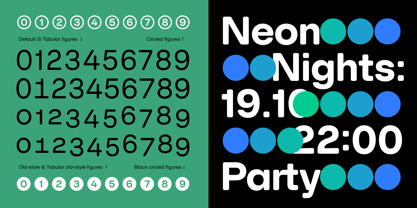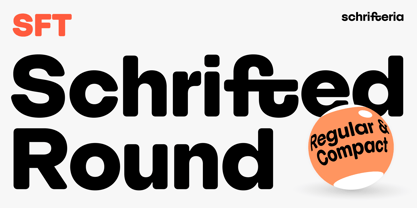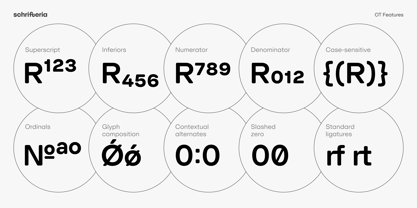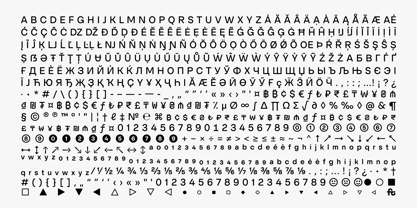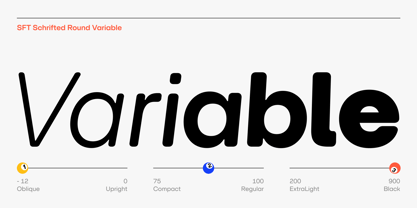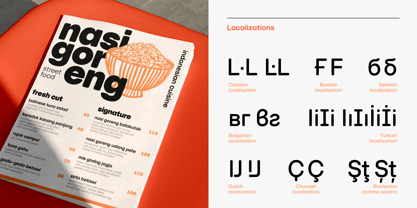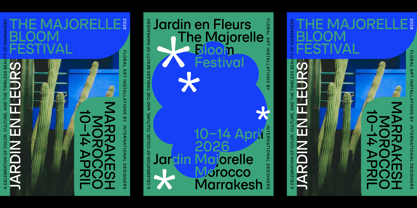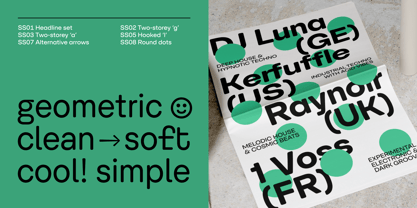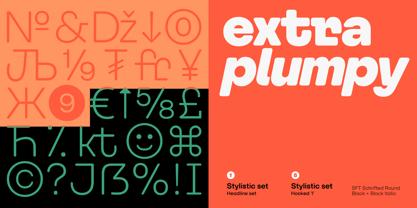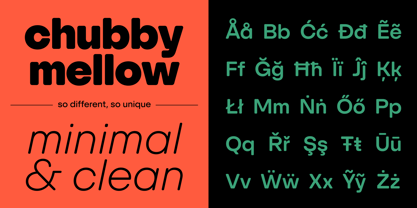
SFT Schrifted Round
by Schrifteria Foundry
The SFT Schrifted Round Font Family was designed by Yulia Gonina, Kirill Maslov and published by Schrifteria Foundry. SFT Schrifted Round contains 33 styles and family package options.
SFT Schrifted Round is a geometric sans with softened edges, clear and inviting at a glance. Concept SFT Schrifted Round takes the rational framework of SFT Schrifted Sans and softens it with rounded corners and smoother contours. The goal is a modern, minimalist voice that keeps precision intact while adding a touch of warmth. It’s built for real work — interfaces, packaging, wayfinding, editorial — where typography needs to solve problems cleanly without feeling cold. The family offers enough range to set calm, efficient text and, when needed, bring more character to expressive headings. Graphics Visually, SFT Schrifted Round translates crisp geometry into tactile shapes. Corners are softened, and proportions remain generous for comfortable reading on screens and in print. The rounding is purposeful rather than decorative — it smooths rhythm, balances texture, and adds a subtle human presence to grids and systems that value precision. Family The core appearance is a rounded geometric sans with thoughtful spacing and optical balance. In lighter weights it reads as clean and unobtrusive; in bold styles it becomes confident and expressive. Use default styles for dependable text, then unlock stylistic sets to introduce a more distinctive headline voice. Figure options and OpenType features support editorial and data-heavy layouts, so one family can carry both the informative and the expressive parts of a design.